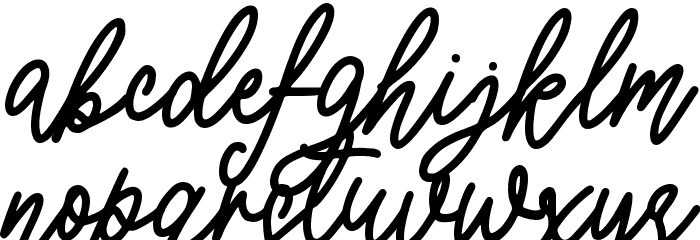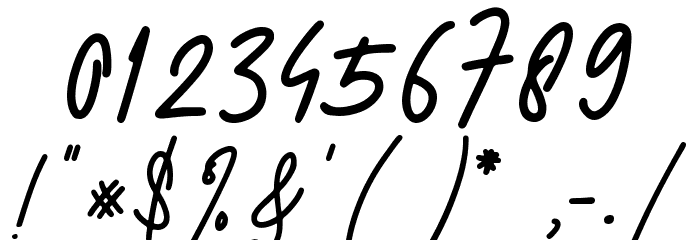
Lovely Garland Font
This font exudes a charming and elegant handwritten style, characterized by its fluid and connected letterforms. The uppercase letters are gracefully looped and slightly slanted, giving a sense of movement and flow. The lowercase letters maintain a consistent rhythm, with smooth curves and a natural, cursive appearance. The numerals are clear and legible, complementing the overall script style. Special characters are thoughtfully designed to match the aesthetic, enhancing the font's versatility. This font is perfect for projects that require a personal touch or a sense of sophistication.
A charming and elegant handwritten script font with fluid, connected letterforms.
- Proposed Projects: Ideal for wedding invitations, greeting cards, personal branding, and elegant packaging designs.
- Overall Style: Elegant, Handwritten
- Use Case: Logos, Invitations, Personal Branding